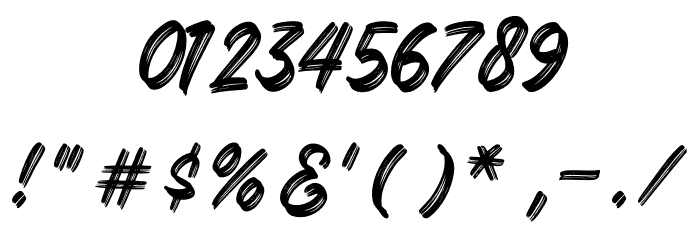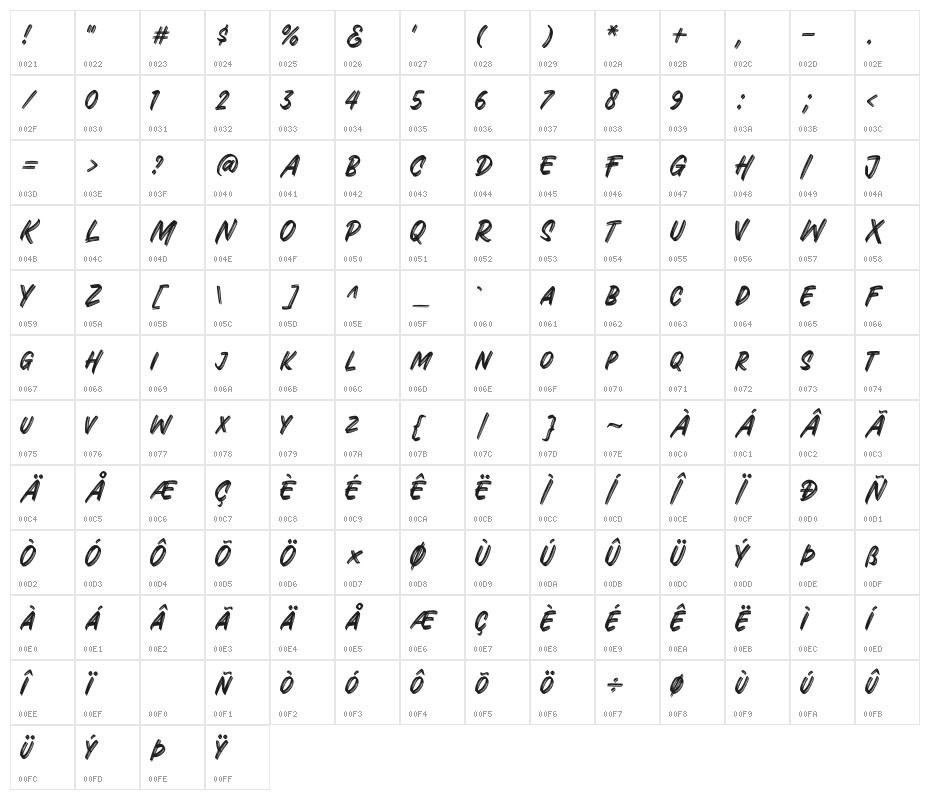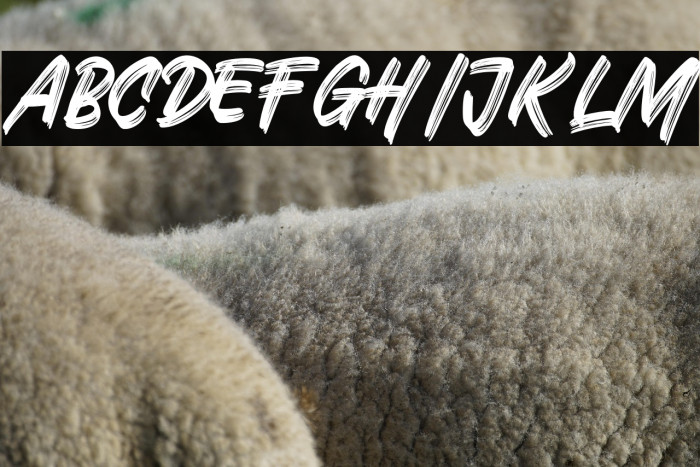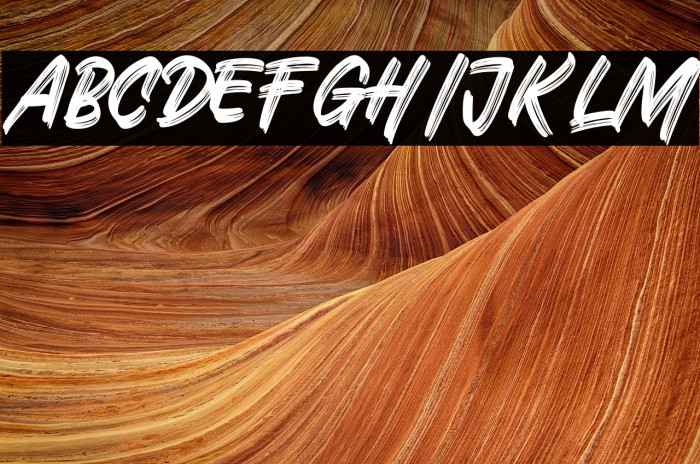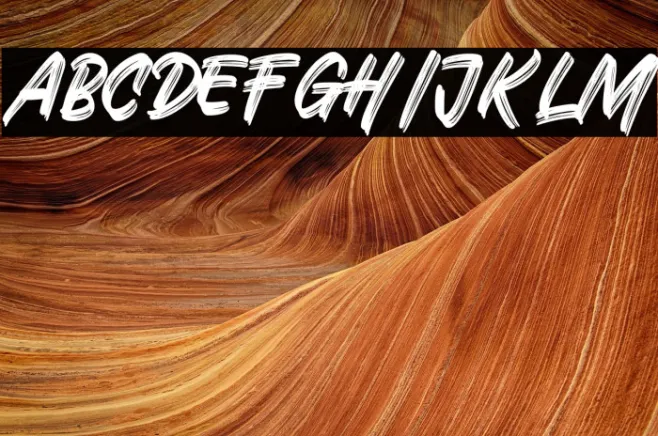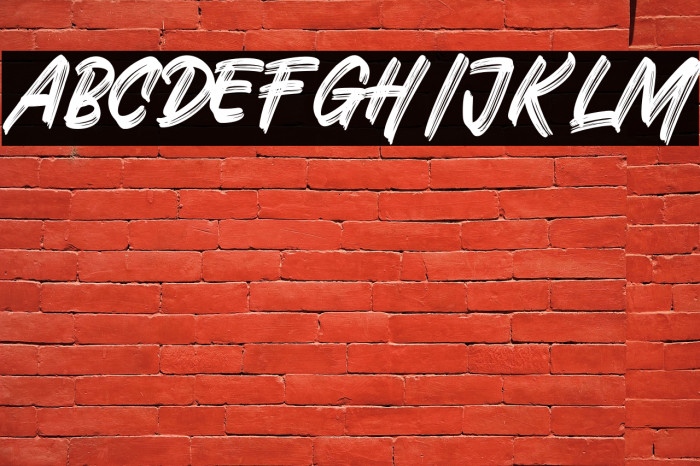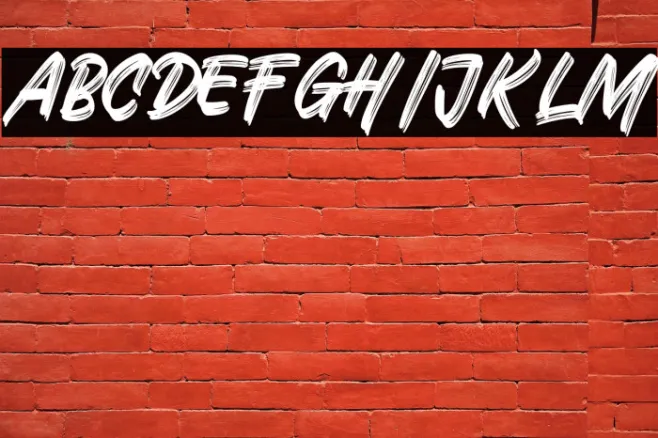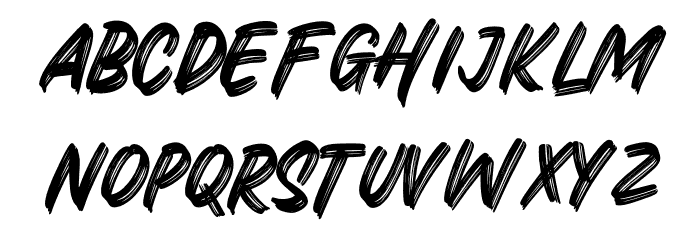
BlackRavens-Normal Font
BlackRavens-Normal Description
This font features a bold, energetic style with a hand-drawn appearance. The strokes are thick and dynamic, giving a sense of movement and urgency. Each character is crafted with a rough, textured finish that adds a raw, edgy feel. The uppercase and lowercase letters maintain a consistent style, with angular lines and sharp edges. Numbers and special characters are equally bold, ensuring a cohesive look across all text elements. The overall design is striking and attention-grabbing, making it ideal for projects that require a strong visual impact.
| Overall Style | Modern, Edgy |
| Proposed Projects | Ideal for posters, album covers, streetwear branding, and any project needing a bold, edgy look. |